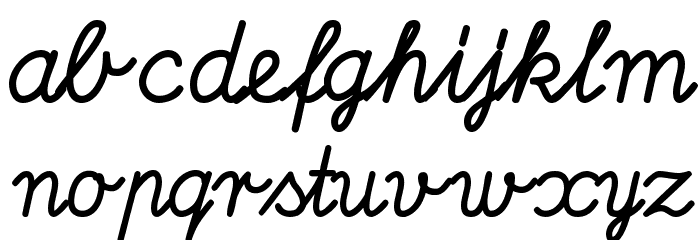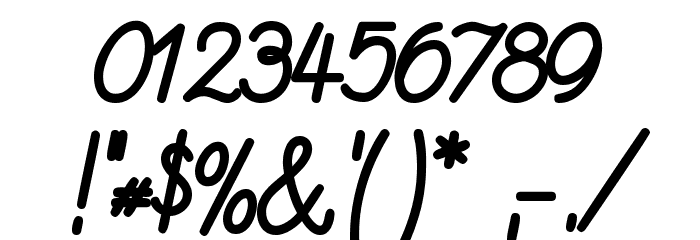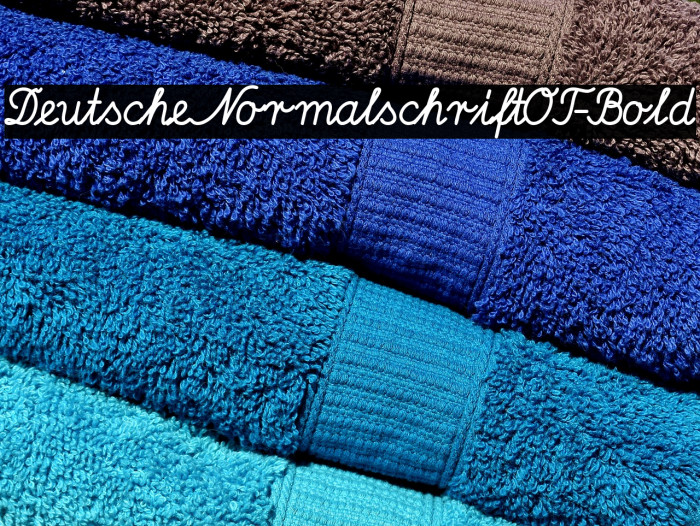
DeutscheNormalschriftOT-Bold Font
This font features a bold, cursive style that combines elegance with readability. The letters are interconnected, creating a fluid and continuous flow that is characteristic of cursive scripts. The uppercase letters are slightly larger and more pronounced, while the lowercase letters maintain a consistent height, enhancing the overall balance of the font. The numerals and special characters are designed to match the cursive style, ensuring a cohesive look across all elements. The strokes are thick and uniform, providing a strong visual presence that is ideal for making a statement.
A bold, cursive font with interconnected letters and a strong visual presence.